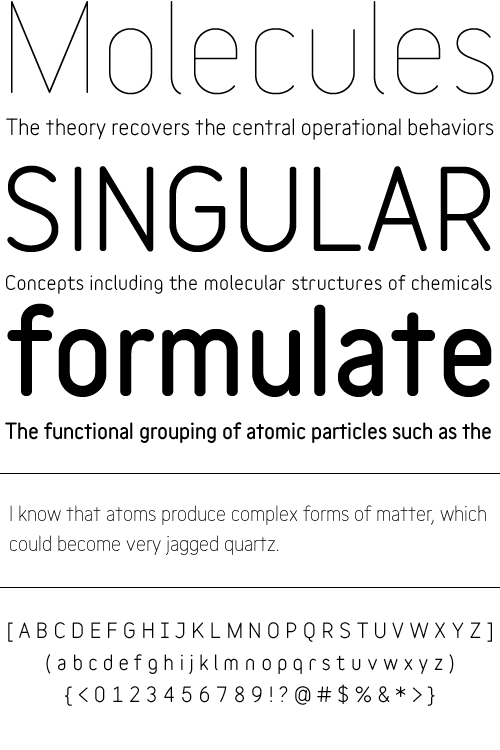
Variable
Variable is a sans-serif monoline typeface family that can be used in a variety of typographic environments. The UltraLight weight is perfect for use at large sizes in magazines or anywhere a hairline effect is needed. The Black weight feels reminiscent of wooden router lettering. Variable is very versatile due to its calming curves and can be used in print or on-screen environments. Year Designed: 2004 Weights: UltraLight, UltraLight Oblique, Light, Light Oblique, Regular, Oblique, Bold, Bold Oblique, Black, Black Oblique Formats Available: Windows PostScript Windows TrueType Macintosh PostScript Price: Family - $89.95 USD Single weight (with italic) - $29.95 USD Purchase Now: MyFonts.com YouWorkForThem |